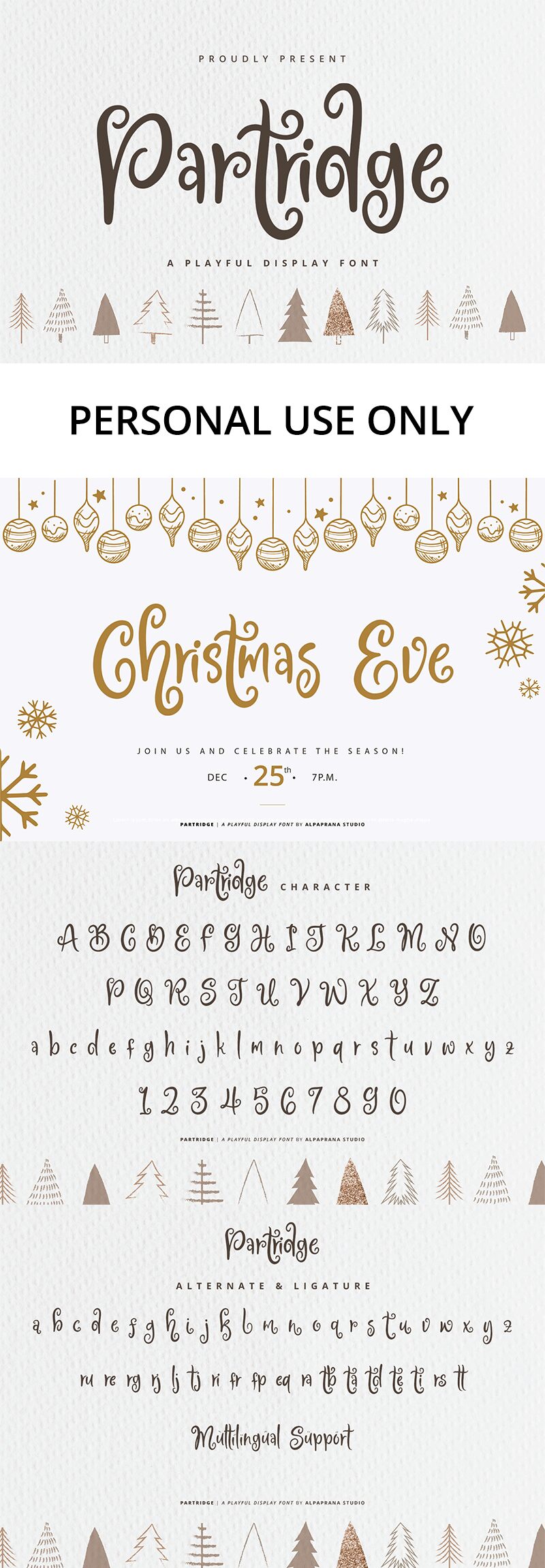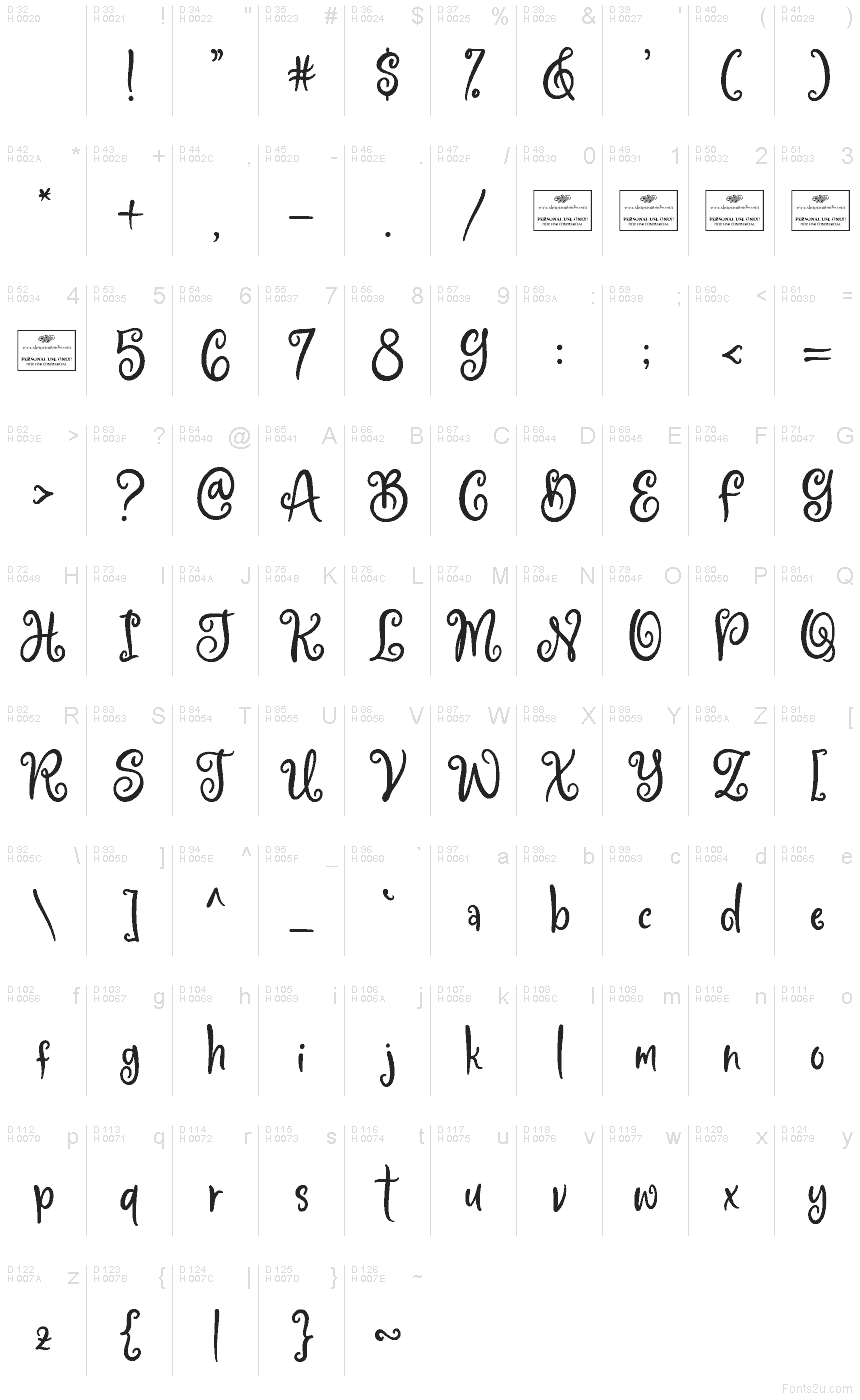
Partridge
Partridge font by Alpaprana Studio is a free holiday calligraphy typeface with a cozy, storybook charm. Tall, slightly bouncy letters and loopy curls feel like they’ve been brushed onto a frosted window, giving every word a warm, handmade glow. The strokes are bold enough to stay legible on busy backgrounds, while the playful swirls add just the right amount of Christmas magic without turning into clutter.
Using Partridge, your holiday projects immediately feel more personal and festive. This free font shines on Christmas cards, advent calendar numbers, gift tags, mug designs, party invitations, and seasonal social posts. It also works beautifully for children’s holiday books or classroom printables. For a clean look, pair Partridge with a simple rounded sans serif and let this curly script take the headline role at larger sizes.